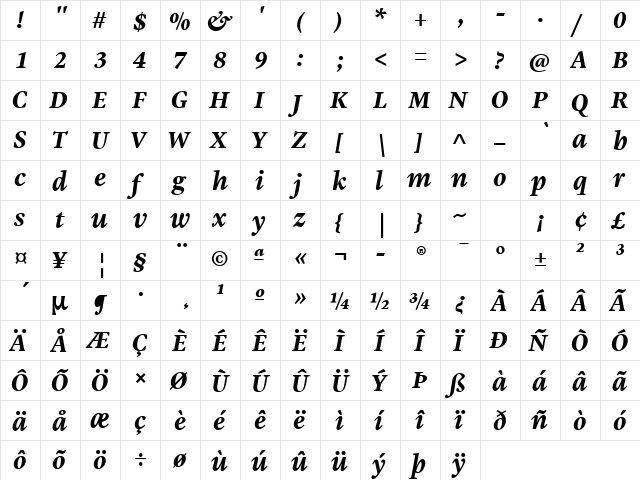
Malabar Pro Bold Italic
Bold Italic · Linotype GmbH Dan Reynolds ·
Design Context for Malabar Pro Typeface
Malabar Pro takes a measured approach to typography — its balanced proportions and neutral character make it a reliable workhorse for both digital and print work. Its italic angle brings a sense of urgency and motion to the letterforms. The heavy weight commands attention and anchors typographic hierarchies.